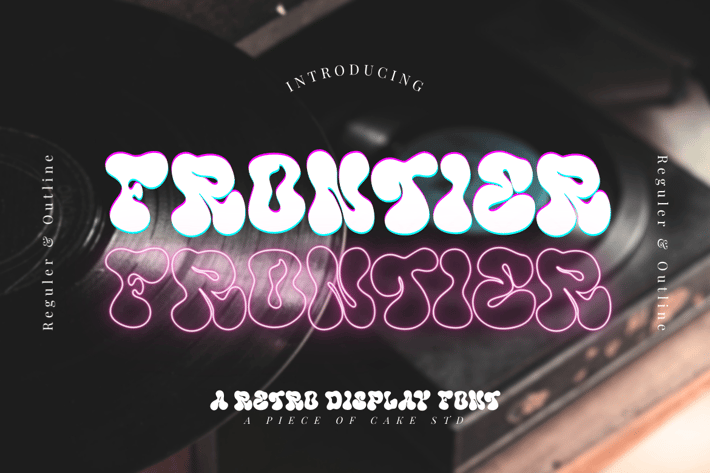
Frontier - A Retro Display Font
Introducing, Frontier is a retro display font suitable for your design project needs, such as; retro themes, social media posts, quotes, overlays on images, tagline logos, posters, print needs, website banners, and more.
A set of uppercase and lowercase glyphs
Number, symbol, and punctuation
Outline Version